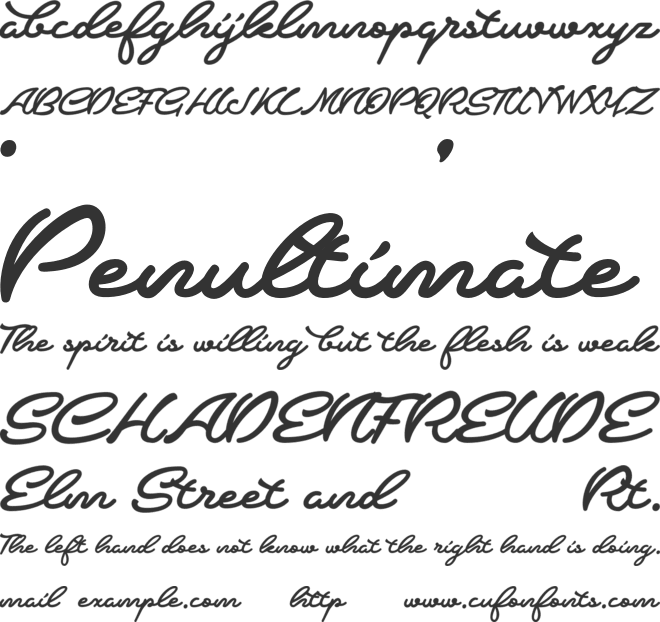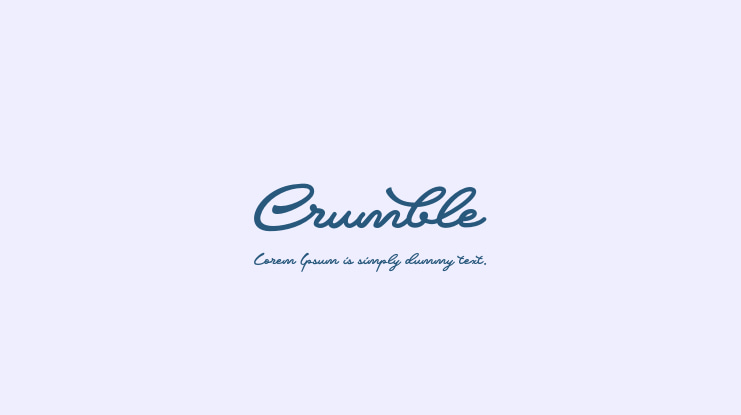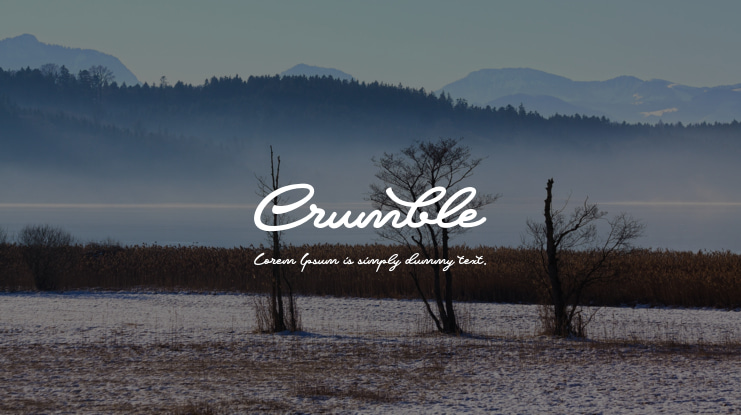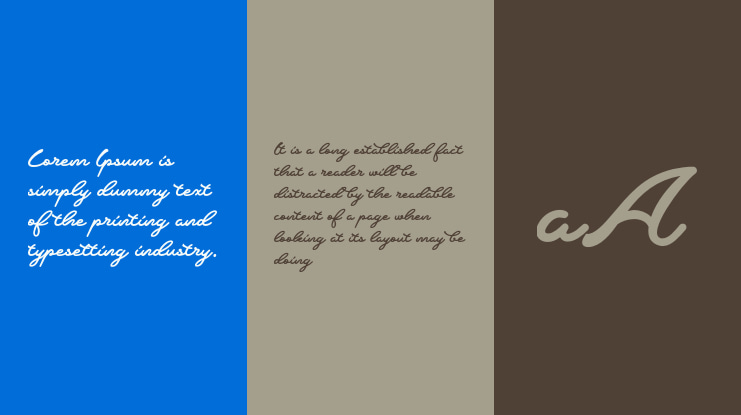
Crumble Font
The Crumble is our new font. An elegant and classy script with signature style on it. Called ‘Crumble’ but this font is made very carefully to get the best movement flow. This font will perfect for some Diplay pupose like : Logotype, Make some quotes, Poster, Wedding Invitation, etc. Even can work as well for your body text. You can check the preview for better look at it and how to use the opentype features.
Crumble font preview